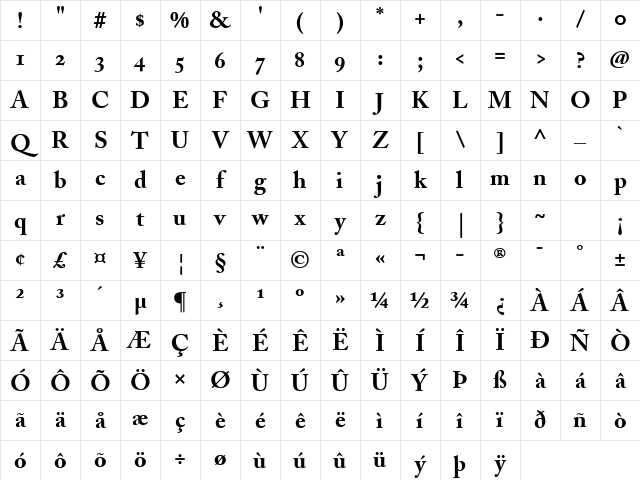
ACaslon BoldOsF Regular
Design Context for ACaslon BoldOsF
ACaslon BoldOsF is a composed and adaptable typeface that performs quietly and consistently across a wide range of design contexts. Its bold stroke weight gives it real presence on the page.